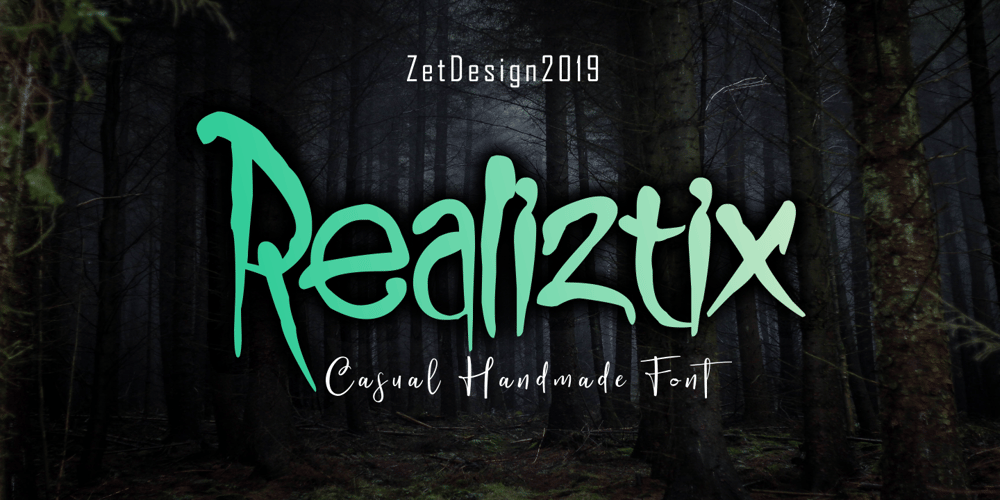
Realiztix
Realiztix font
Realiztix Font Family was designed by Ahmad Zulfikar Ali and published by ZetDesign. Realiztix contains 1 styles and family package options. Realiztix is a playful, handmade font which is perfect for branding, clothing, logos, projects, headlines, posters and packaging. Realiztix allow unique and versatile design options and is equipped with multilingual accents, so it can be used in several Latin languages.